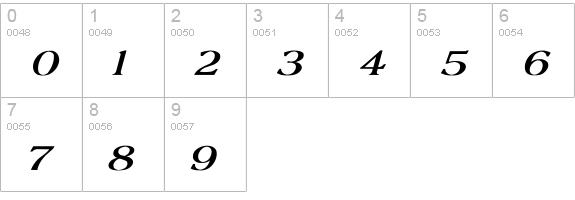
Agate Bold Italic is a strong, high-contrast, italic variant in the Agate typeface family \xE2\x80\x94 well suited to headlines, attention-grabbing titles, and strong calls-to-action.
Agate Bold Italic is a striking and elegant font that exudes a sense of sophistication and modernity. Its bold weight and italic style make it perfect for adding a touch of flair to any design project. The unique letterforms of Agate Bold Italic are both eye-catching and easy to read, making it a versatile choice for a wide range of applications. One of the best things about Agate Bold Italic is that it is available for free download at FontsMarket.com. This means that you can easily access this high-quality font without having to spend a penny. Whether you are a professional designer looking for a new font to add to your collection, or a hobbyist looking to spruce up your personal projects, Agate Bold Italic is a fantastic choice that won't break the bank. With its sleek and contemporary design, Agate Bold Italic is sure to make a statement in any project. Download it for free today and see how it can elevate your designs to the next level.